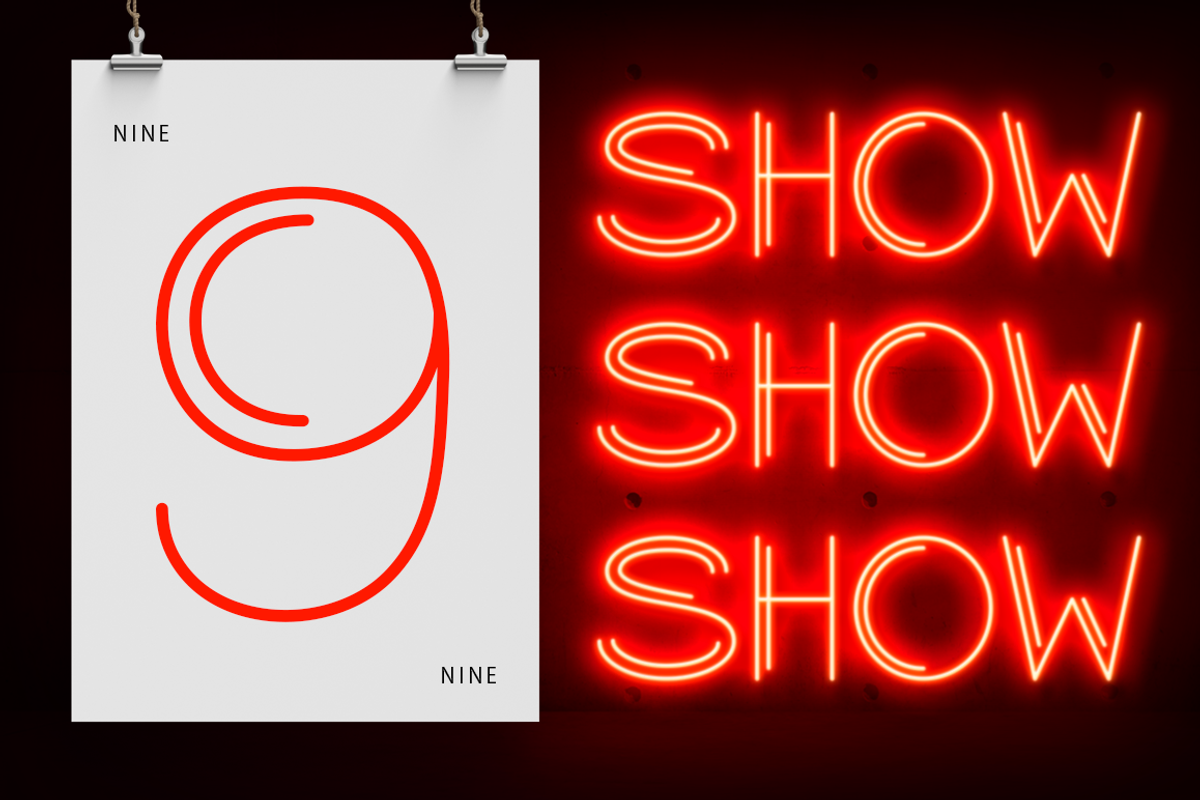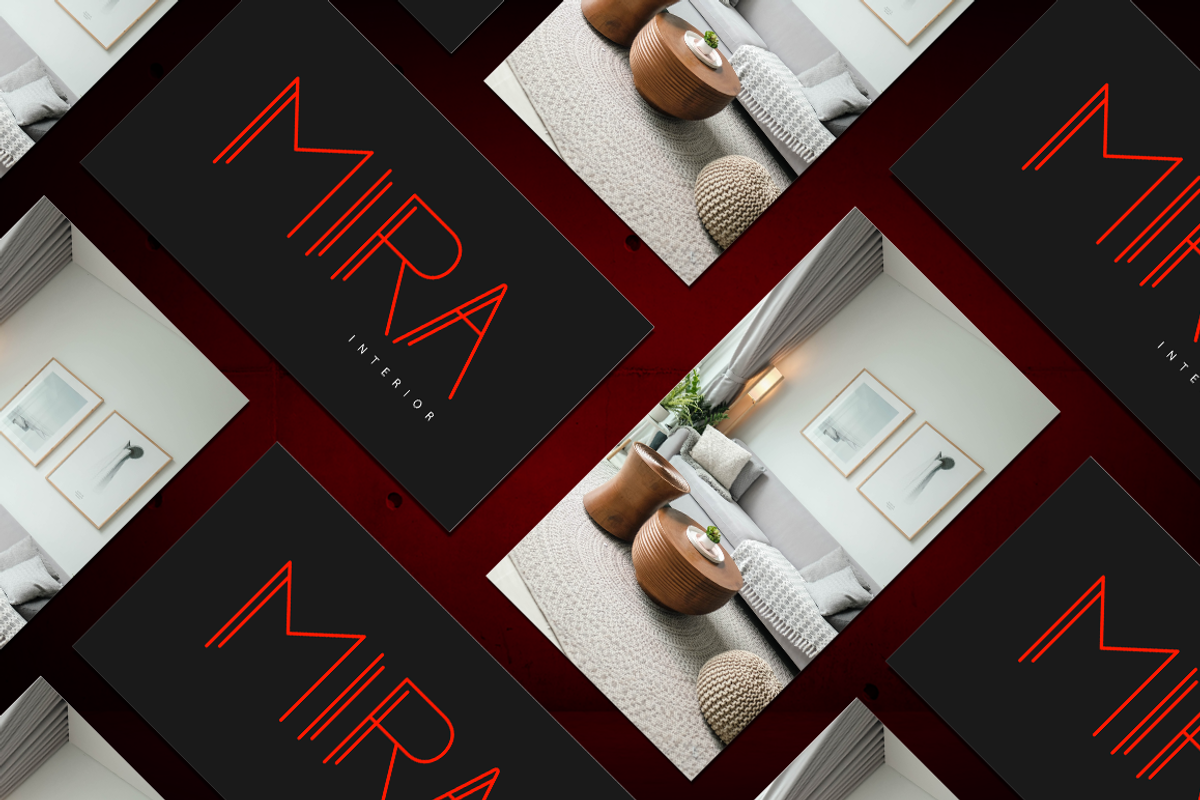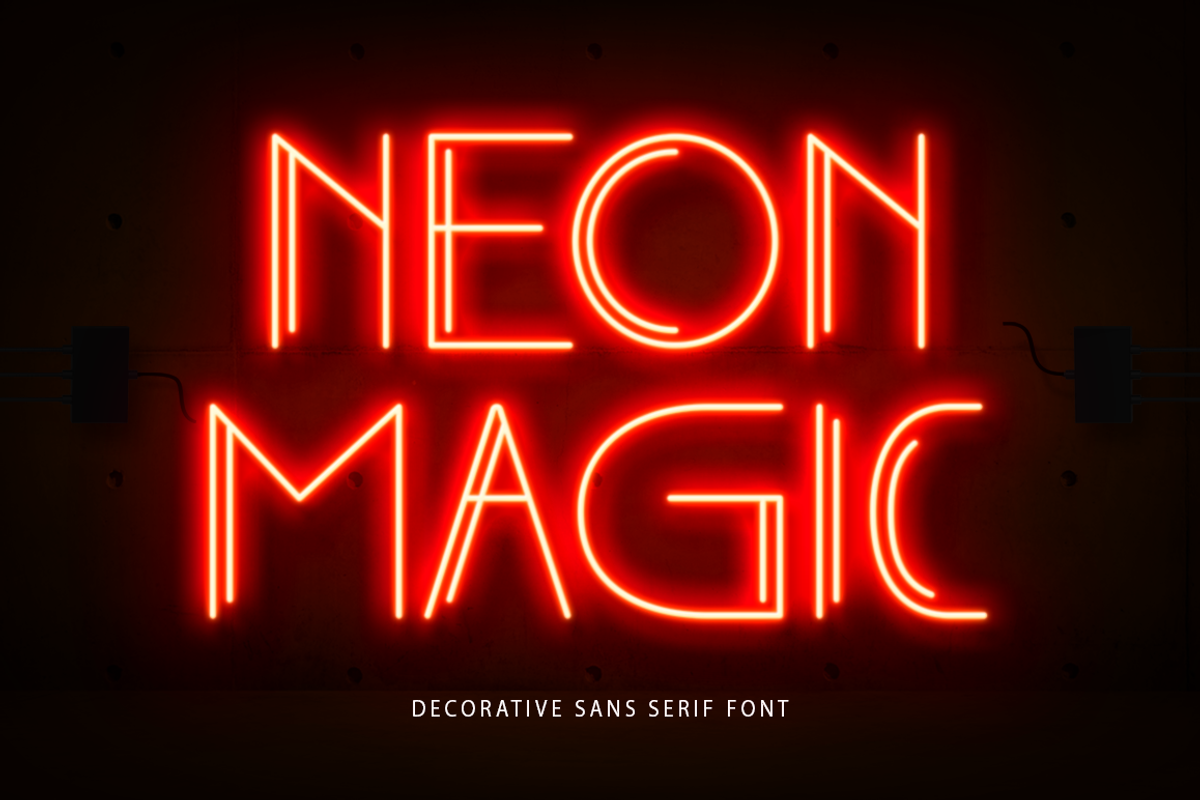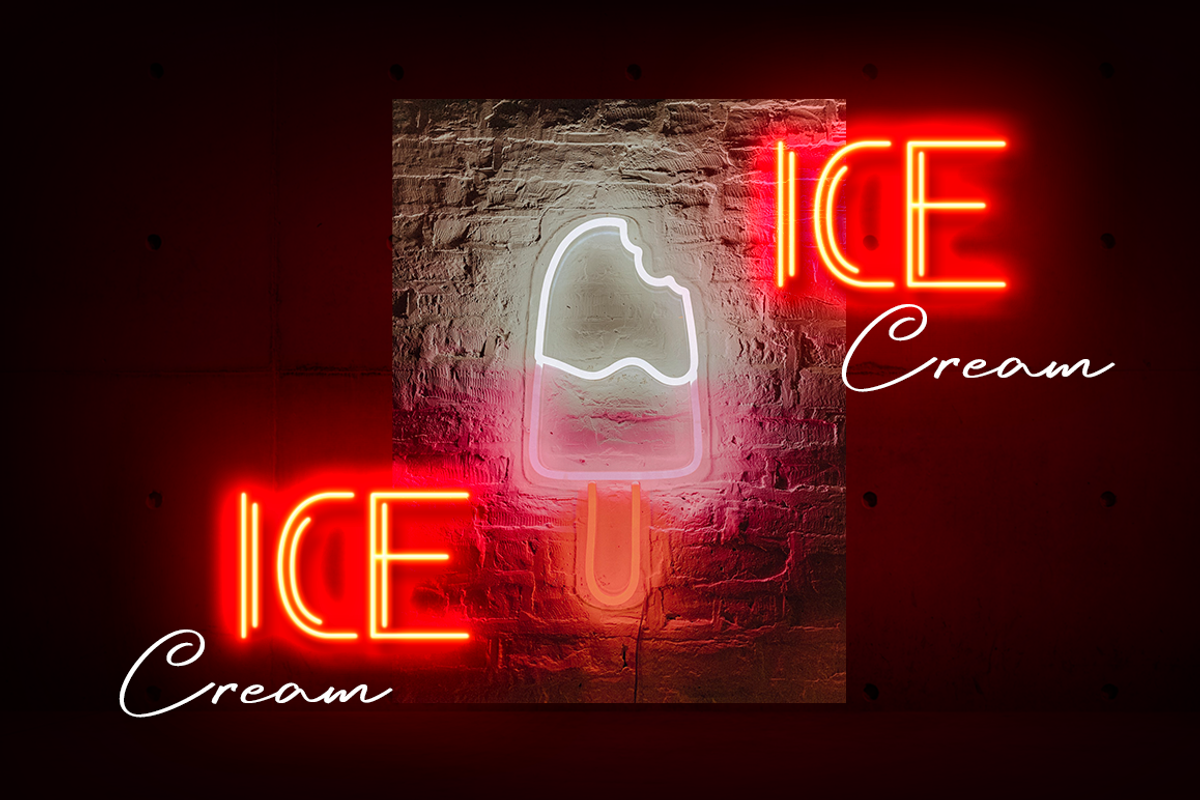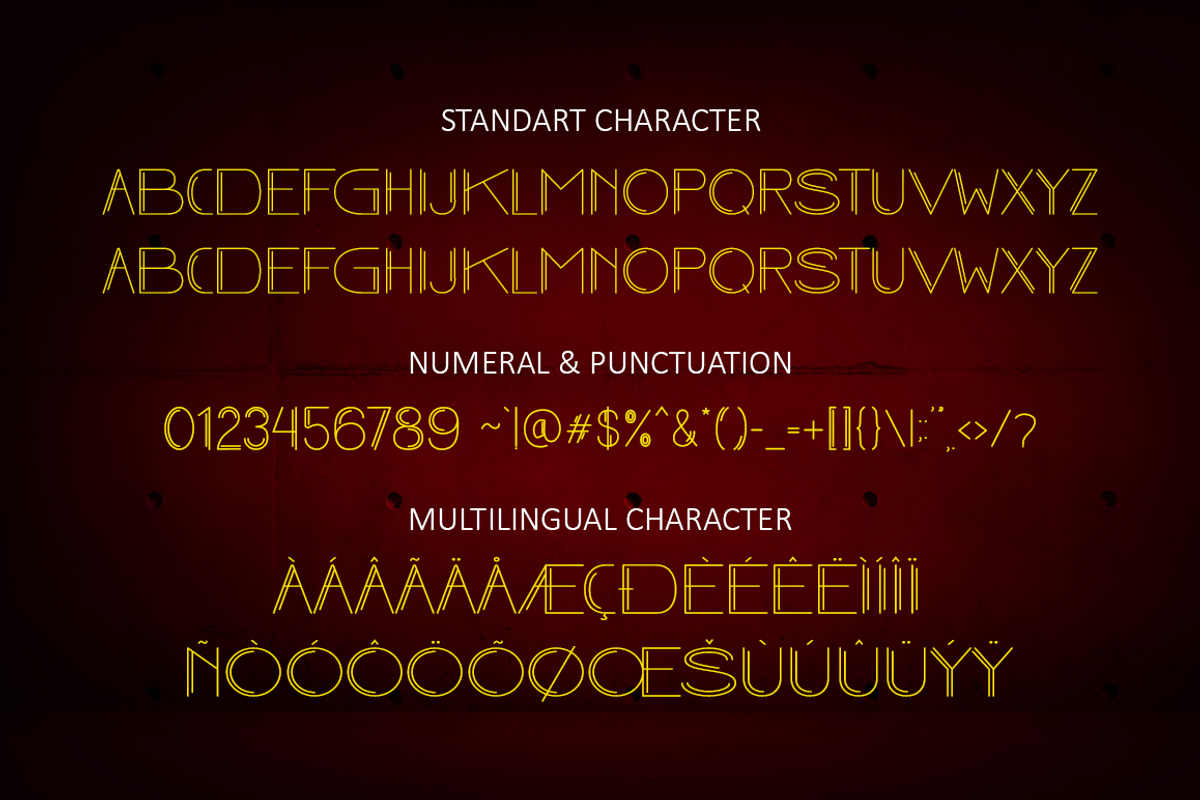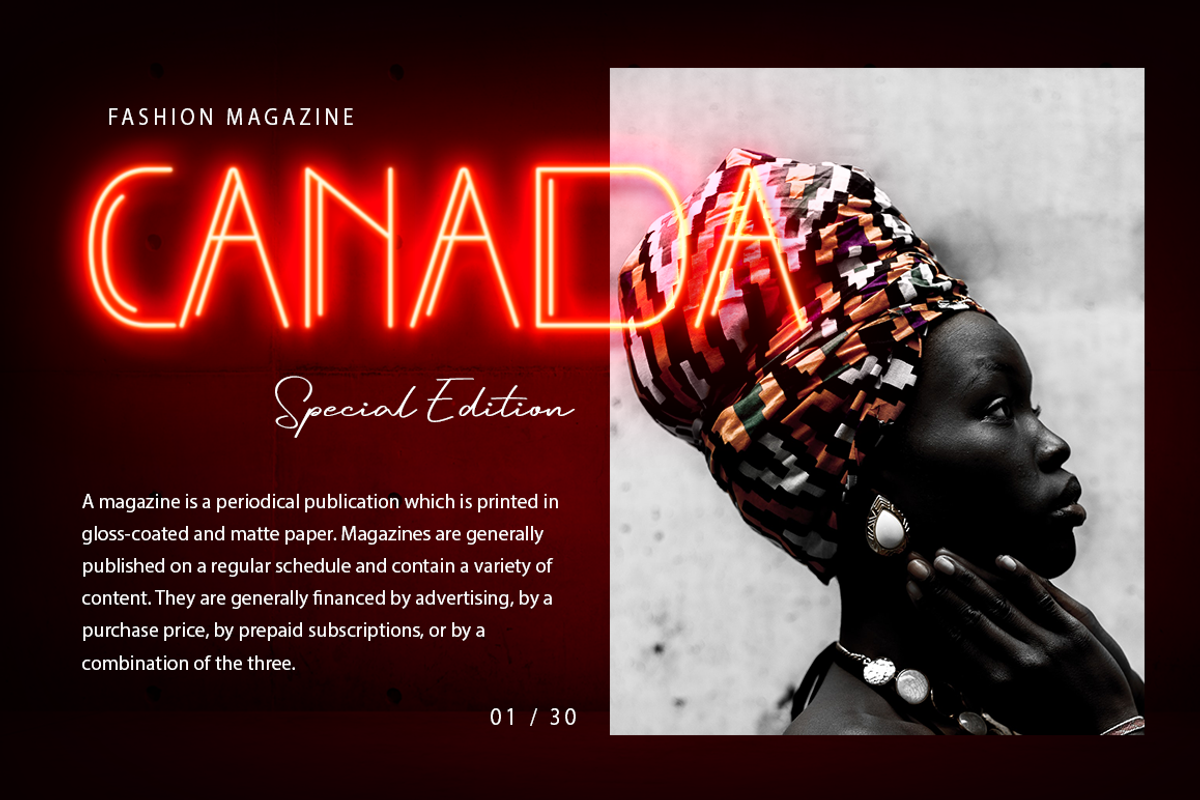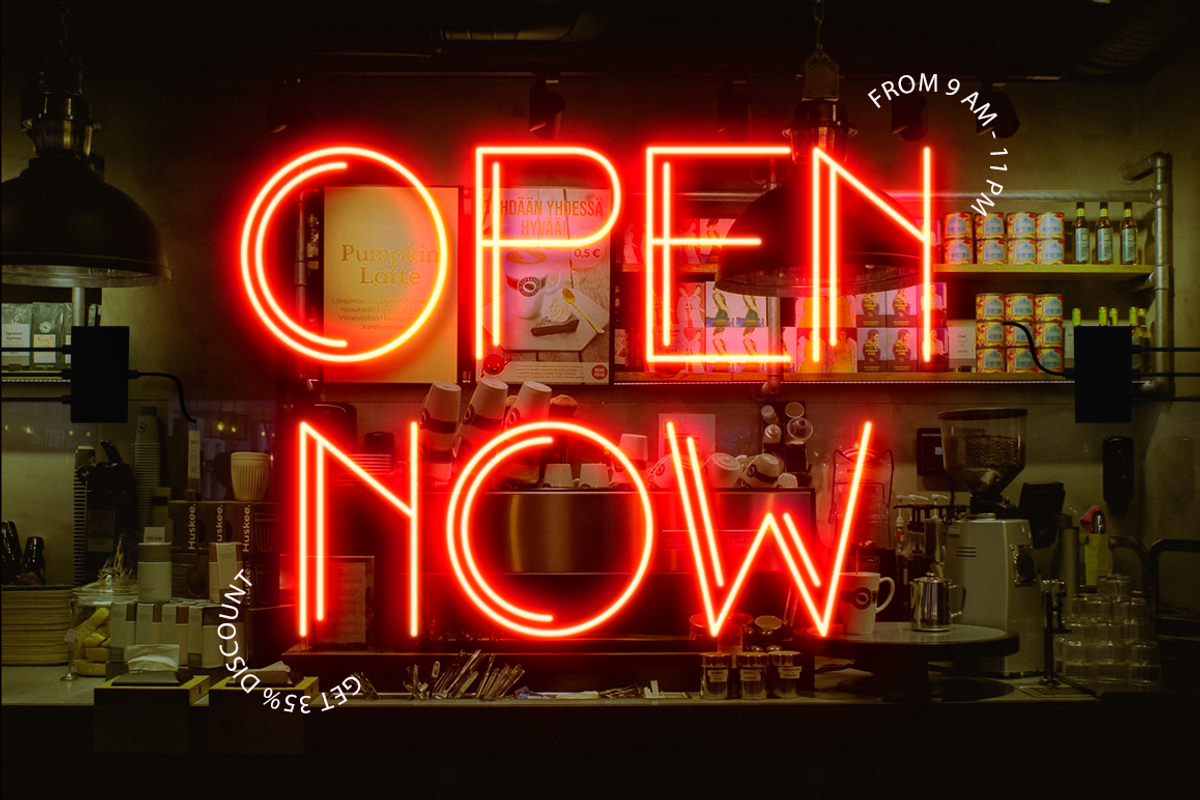
Neon Magic - Retro Sans Serif Font
Neon Magic is a cool and retro styled sans serif font. It can easily be matched to an incredibly large set of projects, so add it to your creative ideas and notice how it makes them stand out!
Features : Uppercase and lowercase Numbers Symbols Multilingual Accent